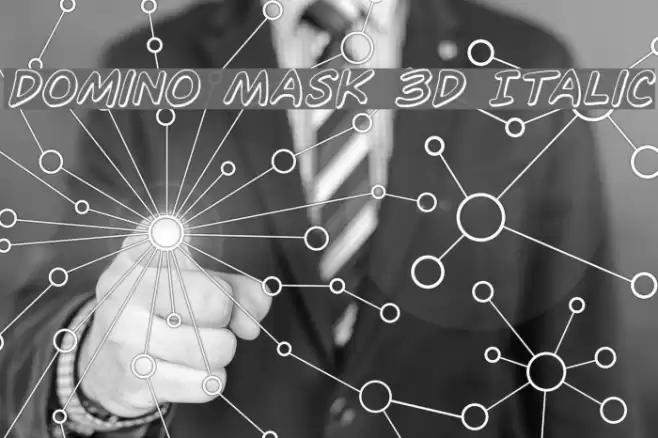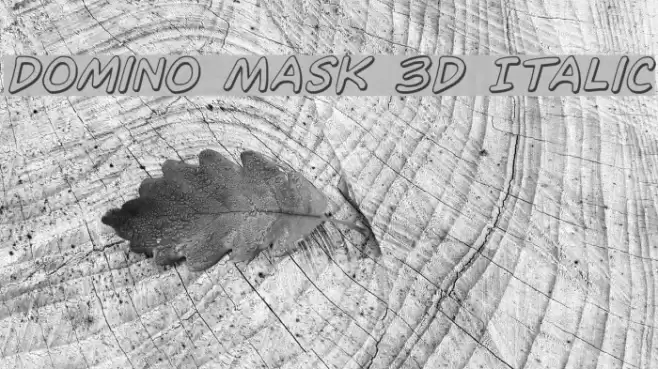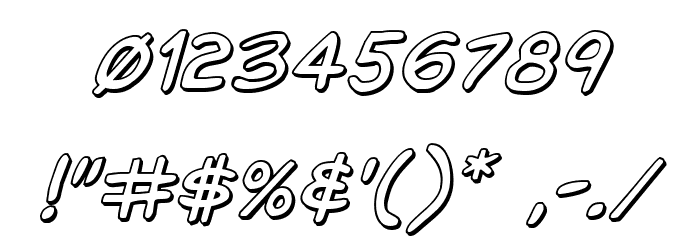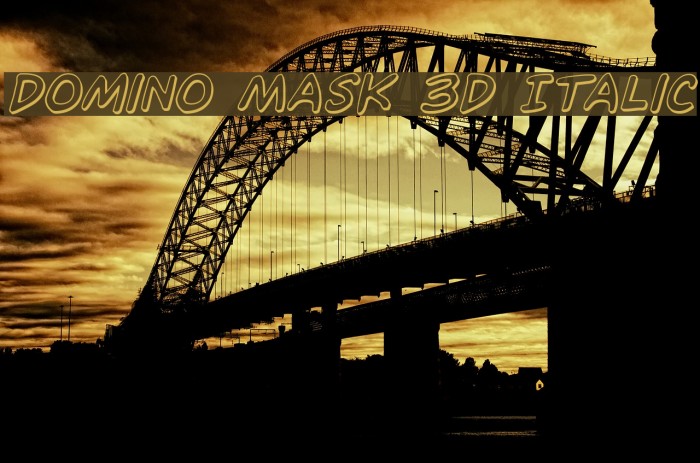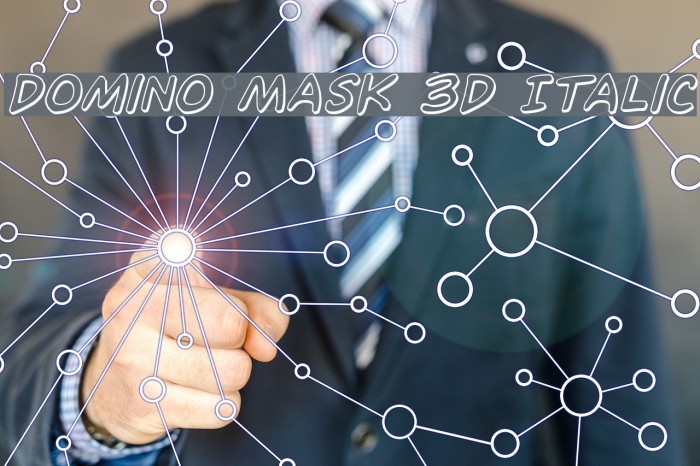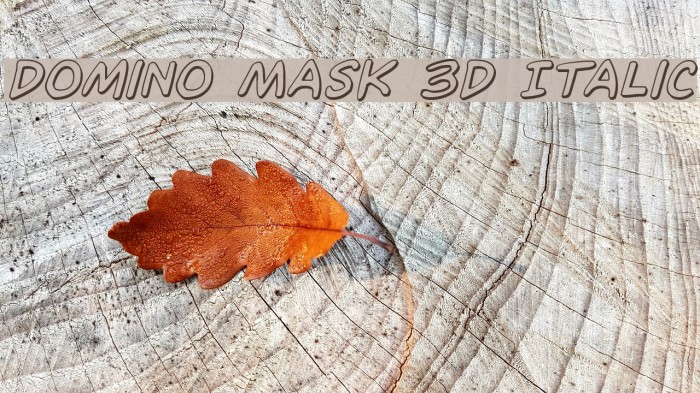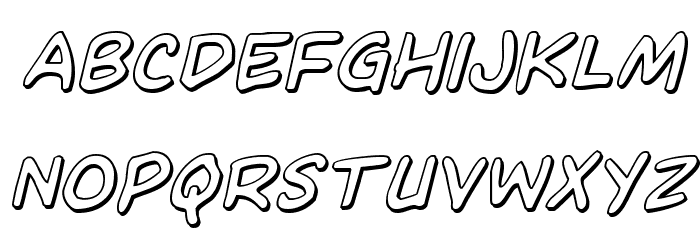
Domino Mask 3D Italic Font
Domino Mask 3D Italic Description
This font features a playful and dynamic 3D effect, with each character outlined to create a sense of depth. The italic style adds a sense of movement and fluidity, making it stand out with a modern twist. The characters are bold and rounded, giving them a friendly and approachable appearance. The spacing between characters is normal, ensuring readability while maintaining its unique style. This font is versatile, suitable for creative projects that require a touch of fun and energy.
A playful 3D italic font with bold, rounded characters and a modern feel from Comic fonts.
- Proposed Projects: Ideal for children's books, comic strips, playful branding, and eye-catching posters.